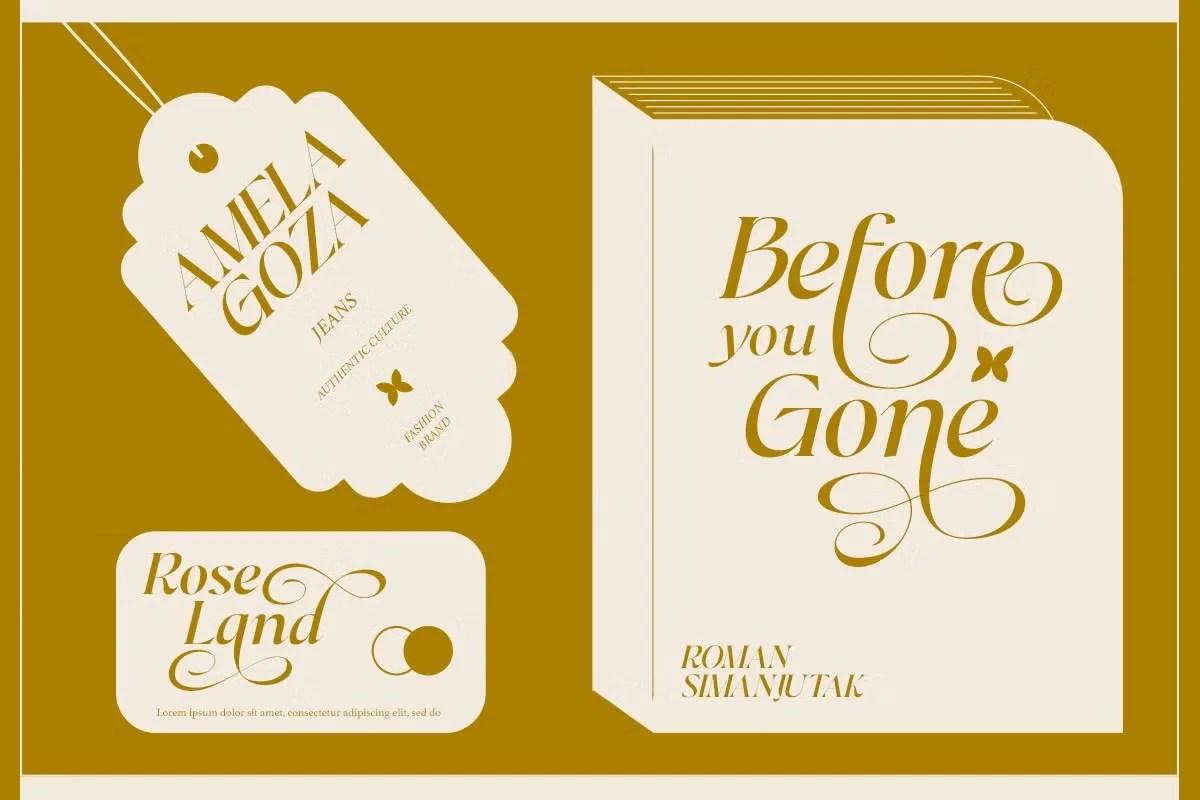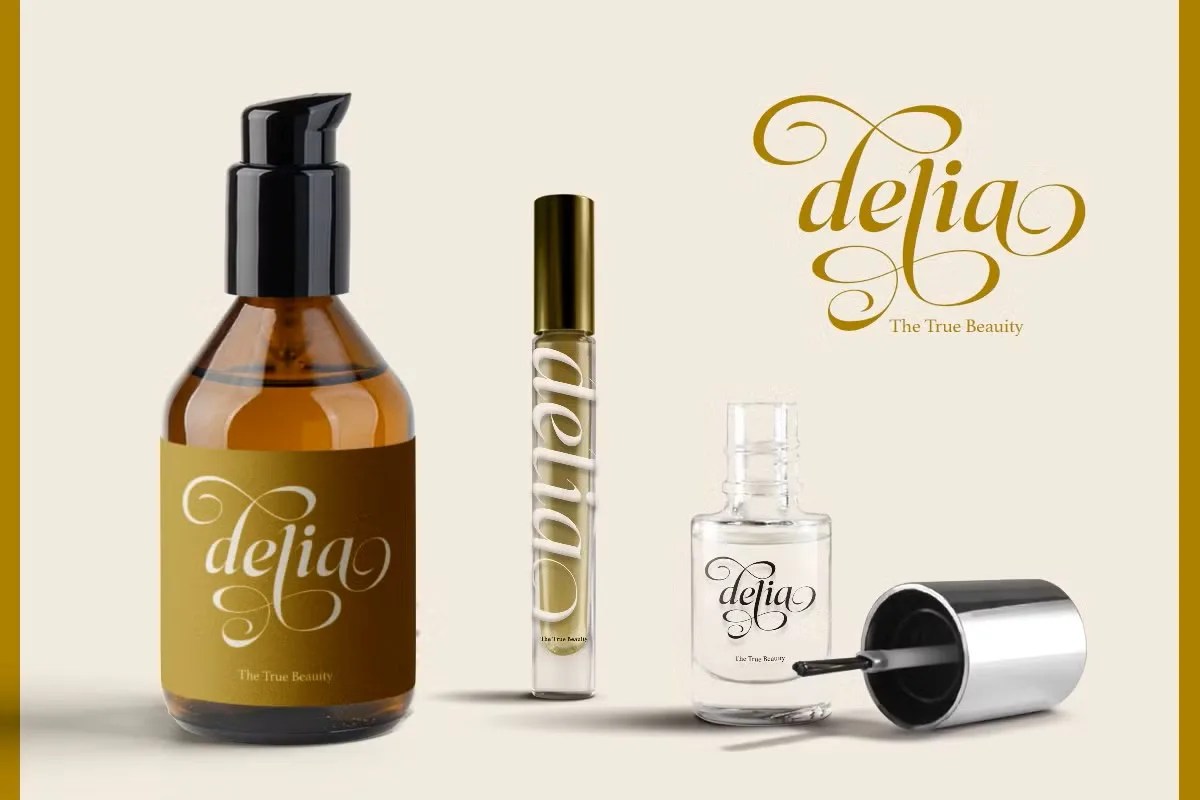
Irlia by Dharmas Studio. It is a truly elegant serif font that brings a touch of timeless grace to any design. This typeface speaks with a quiet and sophisticated voice. Its delicate letterforms are both beautiful and highly readable, making it a versatile choice for a wide range of creative needs. Irlia is perfect for projects that require a classic, romantic, and high-end feel, adding an instant layer of refinement.
This font is incredibly versatile for sophisticated projects. Specifically, it is an ideal choice for wedding invitations, save-the-dates, and other romantic stationery. Its classic look is also perfect for luxury branding. For instance, a perfumery, a high-end boutique, or a fine-dining restaurant could use Irlia to create a memorable and sophisticated logo. Furthermore, this elegant serif font elevates any editorial layout or book design. It provides a comfortable and beautiful reading experience for your audience.
• Classic and elegant serif style
• Features delicate, high-contrast letterforms
• Ideal for invitations, luxury branding, and editorial
• Adds a sophisticated and romantic touch